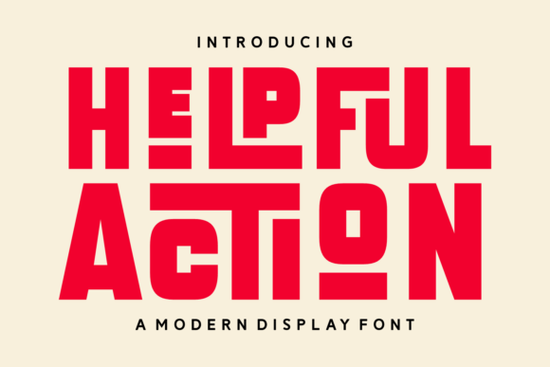
If you're looking for a display font that feels warm, familiar, and just right for seasonal projects especially around Thanksgiving and Christmas you’ll likely enjoy Helpful Action Font. It’s not overly ornate or fussy, but it carries clear retro charm: think mid-century signage, vintage diner menus, and hand-stamped clothing tags. Designed with both function and feeling in mind, it works well for designers who need something distinctive yet legible at larger sizes like posters, product labels, or social media banners.
What kind of projects is Helpful Action Font best for?
This font shines where personality matters more than neutrality. Because it blends holiday themes without leaning too hard into clichés, it fits naturally on:
- Vintage-style apparel tags and hang tags (especially for small-batch makers)
- Festive shop signage both physical and digital for cafes, boutiques, or craft fairs
- Editorial layouts in seasonal newsletters or print zines
- Logos or wordmarks for small businesses with nostalgic branding (think bakeries, candle makers, or local gift shops)
- Packaging for handmade goods like jams, soaps, or holiday cookies
It’s not meant for body text or long paragraphs but that’s by design. Like Remington Weather Font, it’s built for impact, not endurance.
How does the retro style translate to real-world use?
The “S-inspired” detail mentioned in the description refers to subtle curves and swashes especially visible in letters like S, C, and G. These aren’t flashy flourishes, but gentle nods to 1950s–60s lettering. That makes Helpful Action Font feel approachable rather than costumed. You won’t need to spend hours adjusting kerning or tracking to get a balanced look it’s tuned for readability right out of the box.
It also includes PUA-encoded ligatures and alternate glyphs, which means you can swap in stylistic variations (like a double-story a or connected fl) without switching fonts. That kind of flexibility helps crafters and small business owners keep designs consistent across platforms whether they’re designing a Canva post, an Etsy banner, or a physical label in Illustrator.
Does it pair well with other fonts?
Yes and thoughtfully. Its medium weight and open letterforms make it easy to pair with clean sans-serifs (like Montserrat or Inter) for contrast, or with softer script fonts for warmth. For example, if you’re designing a holiday market flyer, try pairing Helpful Action Font for the event name with Loveberry Bold Font for subheadings and a simple serif for details. The result feels intentional, not cluttered.
Is it beginner-friendly?
One thing to keep in mind: because it’s a display font, avoid scaling it down below ~36pt for print or ~48px for web. At smaller sizes, some of the charm gets lost and legibility dips. Save it for where it can breathe.
- Do I need a font that supports both Thanksgiving and Christmas themes without feeling repetitive?
- Will I use it mostly for headers, logos, or packaging not long-form text?
- Do I prefer subtle vintage cues over heavy ornamentation?
If most answers are “yes,” it’s a solid fit. Try pairing it with neutral supporting fonts first, then experiment with one or two ligatures to see how they change the tone. A little goes a long way.